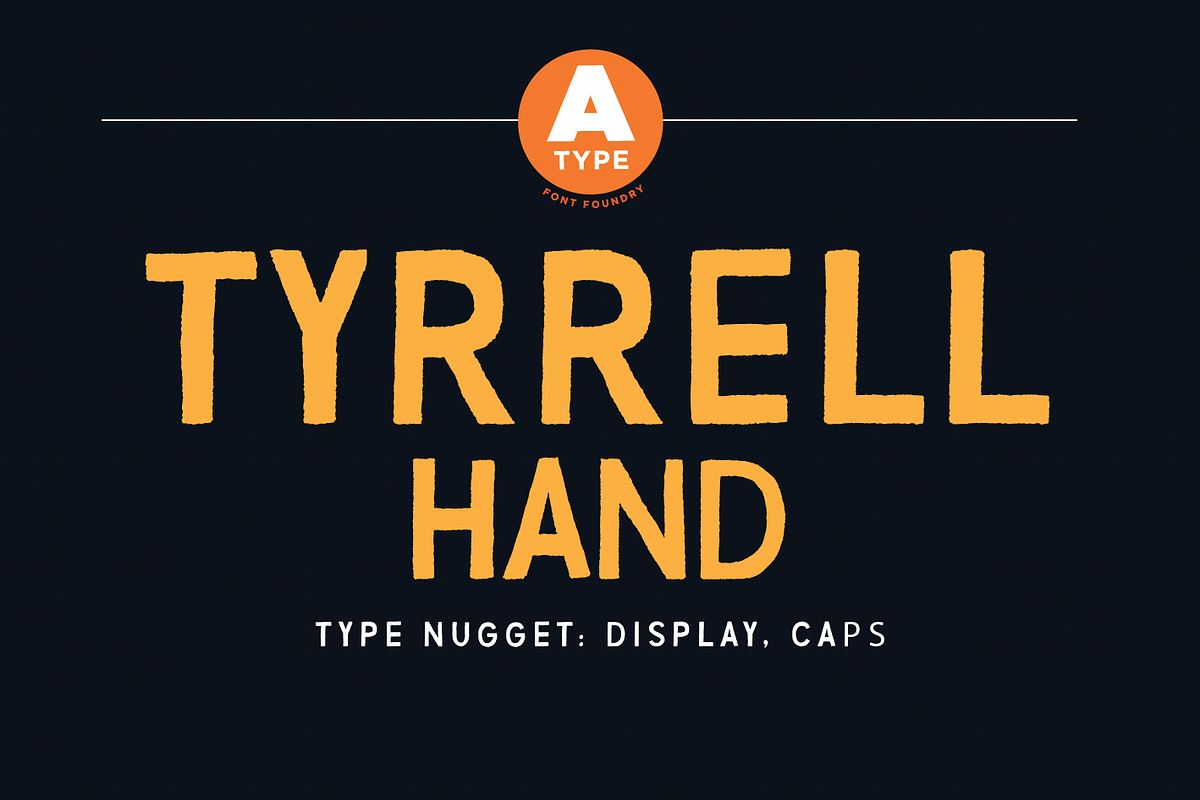
Tyrrell Hand Distressed by A-Type Font is perfect for vintage poster design, rustic branding projects, weathered signage creation, distressed packaging materials, aged manuscript reproductions, historical themed designs, weathered book covers, rustic restaurant menus, vintage label designs, worn industrial graphics, antique-style invitations, and authentic vintage reproductions.
Tyrrell Hand Distressed by A-Type Font is exciting because it masterfully captures the authentic character of weathered handwriting and aged typography through meticulously crafted distressed effects that tell stories of time, history, and authentic human experience. This remarkable typeface features carefully designed wear patterns and organic irregularities that replicate the natural aging process of handwritten documents and vintage signage. The font's authentic distressed character creates instant emotional connections with audiences who appreciate genuine vintage aesthetics and historical authenticity.
This authentic typography solution transforms modern communications into compelling historical narratives through its genuine distressed aesthetic and carefully crafted aging effects. Tyrrell Hand Distressed by A-Type Font Free Download enables designers and vintage enthusiasts to access premium distressed typography that instantly adds authenticity, character, and historical depth to any creative project. The font's meticulously designed distressed elements ensure realistic aging appearance while maintaining readability and professional quality standards.
Vintage brands, historical projects, and rustic businesses trust Tyrrell Hand Distressed by A-Type Font for its ability to communicate authenticity, heritage, and time-worn character to audiences seeking genuine vintage experiences and historical connections. The typeface's weathered construction performs beautifully across various applications, from intimate vintage labels to large-scale rustic signage projects. Its extensive character support includes multilingual capabilities and distressed design elements that enhance authentic vintage brand presentations.
The creative craftsmanship behind Tyrrell Hand Distressed by A-Type Font involves detailed study of natural aging processes, weathered materials, and authentic vintage typography to create distressed effects that feel genuinely aged rather than artificially manufactured. This authenticity-focused approach creates a font that feels genuinely historical while maintaining contemporary usability across different vintage contexts and rustic brand expressions.
Whether creating vintage brand identities, historical reproductions, or rustic marketing materials, this hand distressed font delivers exceptional results that embody authentic vintage character and historical credibility. Download Tyrrell Hand Distressed by A-Type Font today and discover how premium distressed typography can transform your design projects into compelling expressions of vintage authenticity, historical charm, and the timeless appeal of weathered craftsmanship.